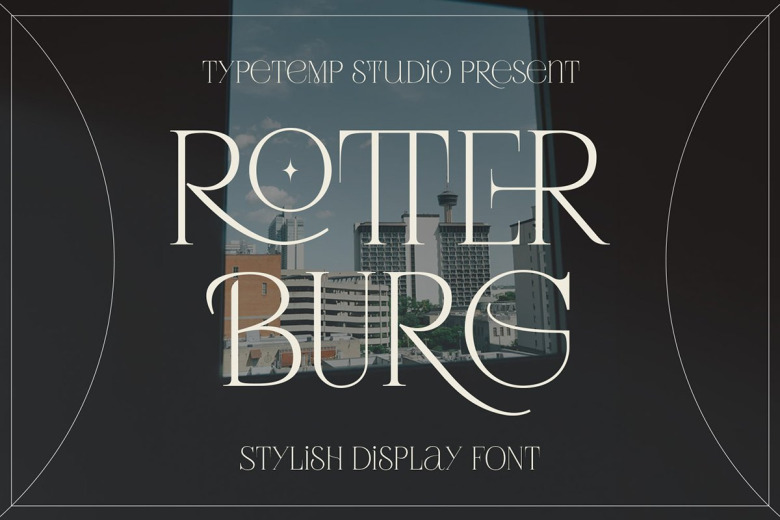
Rotterburg Font
Rotterburg Serif Font
Rotterburg Serif Font is a modern and stylish serif typeface that has its inspiration from the old and deco fonts. Access your OpenType features to access the large selection of alternate letters and ligatures, select the letters you like from the large variety to get the display font you like.
This font with alternatives, ligatures, and multilingual support. Perfect for editorial projects, Logo design, Clothing Branding, product packaging, magazine headers, or simply as a stylish text overlay to any background image.